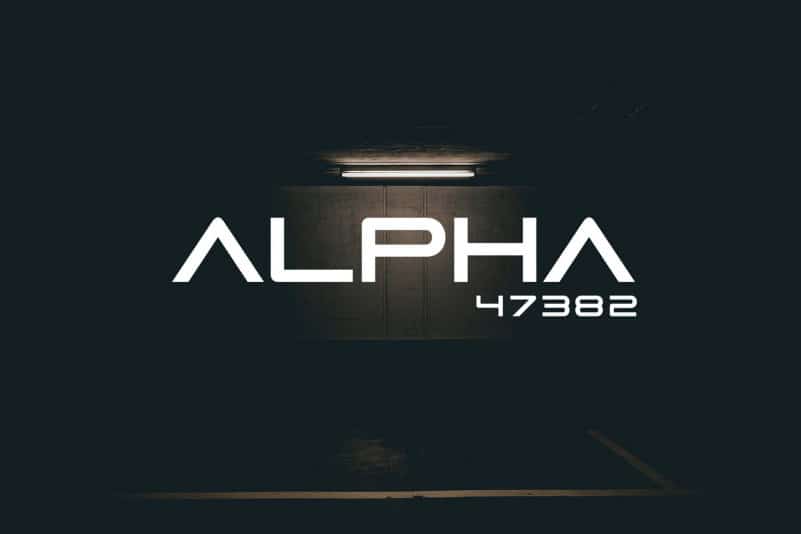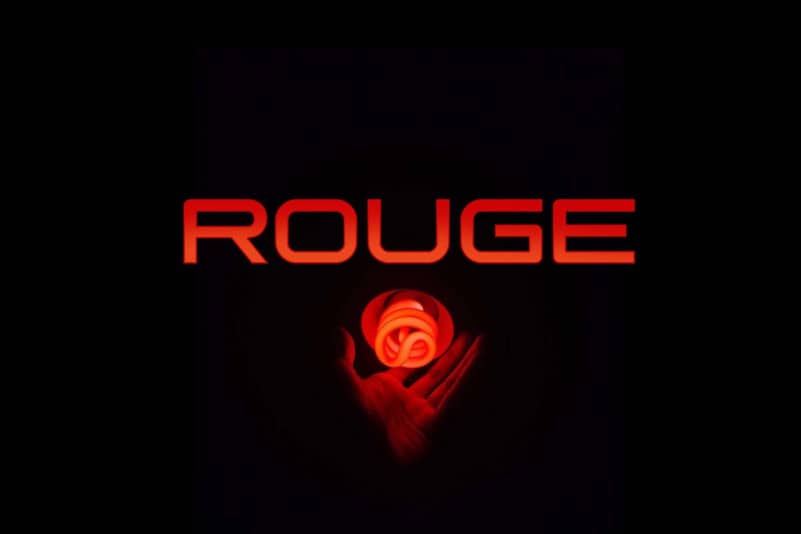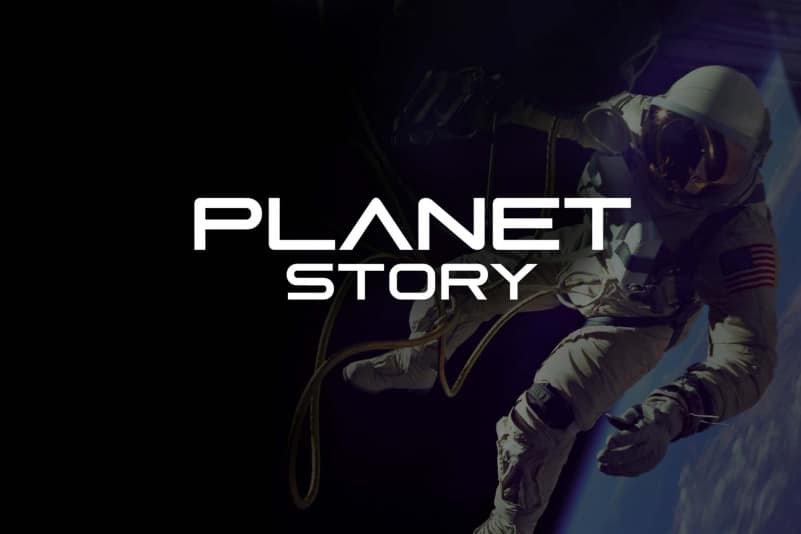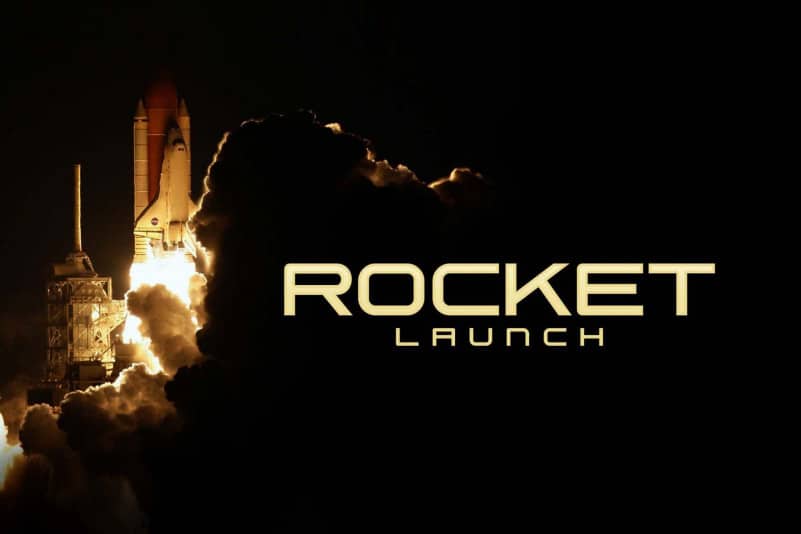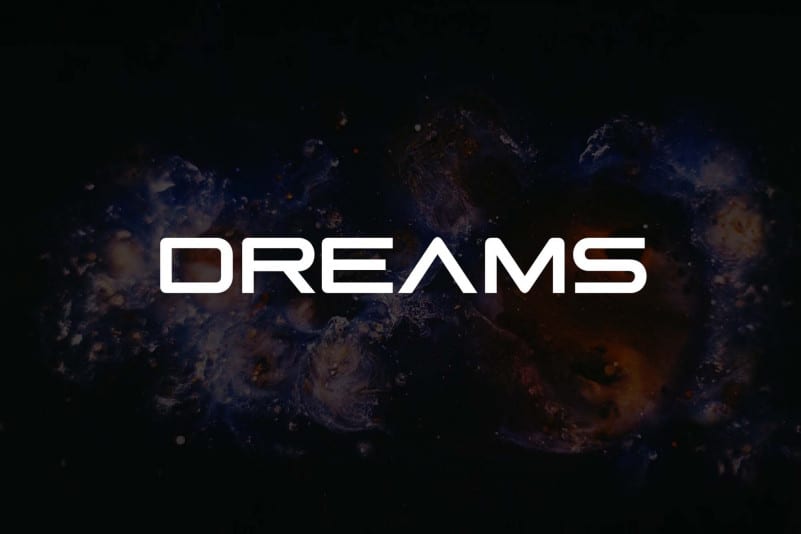
Dreams – Space Font
Thank you for checking out Dreams Font! It’s a futuristic font. It’s minamlistic font, have alternate letters and multilanguage. It consists of simple geometric forms. It will be good for game interfaces, posters, movie and web design! It is design and shared by Unblast. It’s a sci-fi themed font family in regular and outlined styles. It includes uppercase multilingual letters, numbers and punctuation. It is a futuristic, slightly extended sans serif typeface with semi rounded endings that provide a softened aesthetic without losing its solidity. It’s has been conceived to be most suitable for logos, headlines and display design pieces as well as short length text blocks.